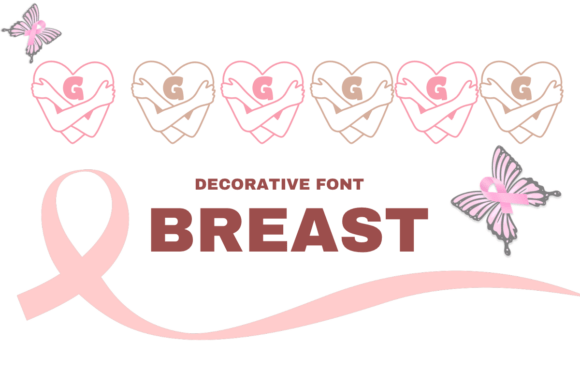
The Power of Typography in Raising Awareness As designers, we often find ourselves in moments of creative fervor, where a single font or color can spark an entire project. For me, it was during a charity event where I saw a bold, eye-catching font that stood out from the rest – the Breast Cancer Font….